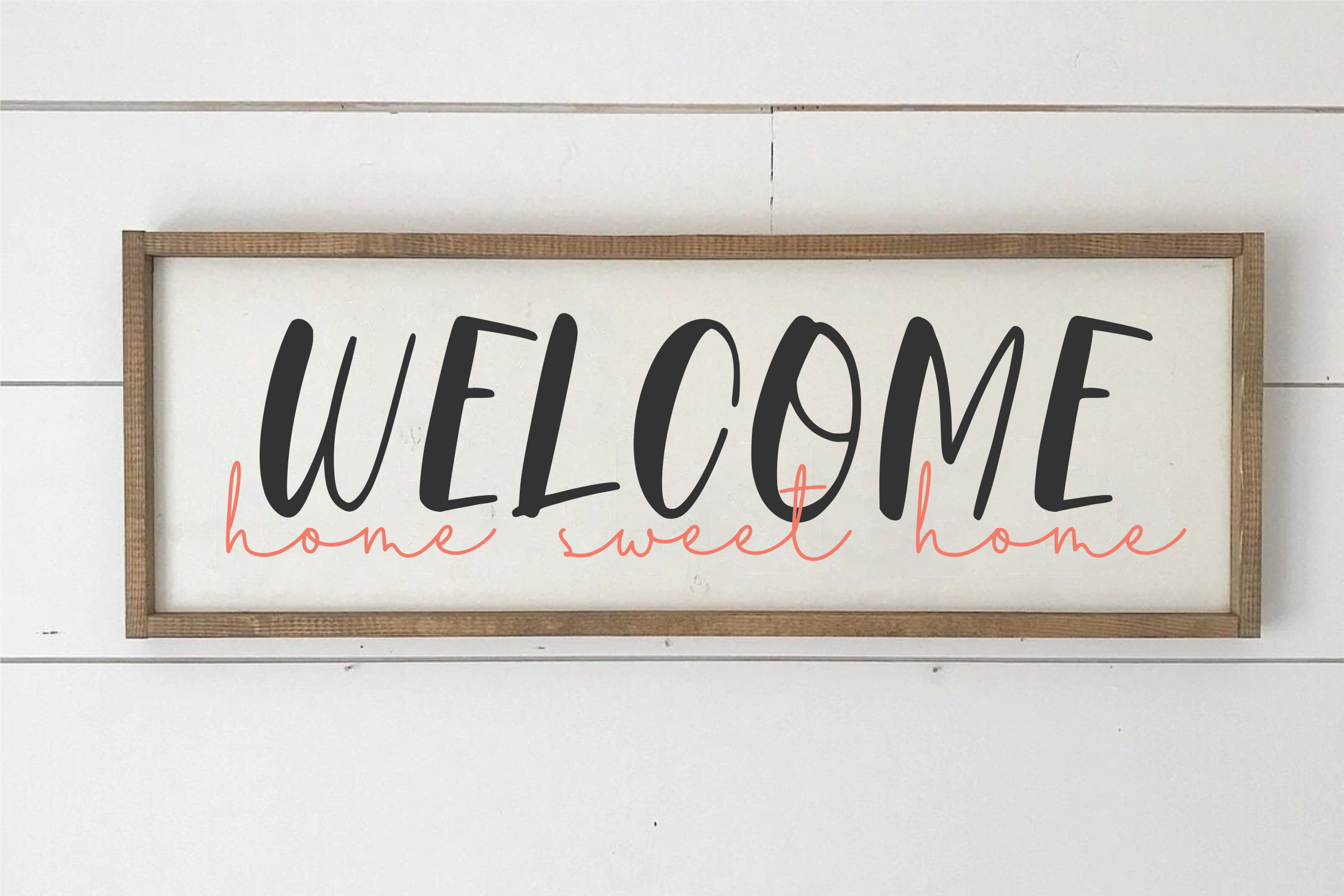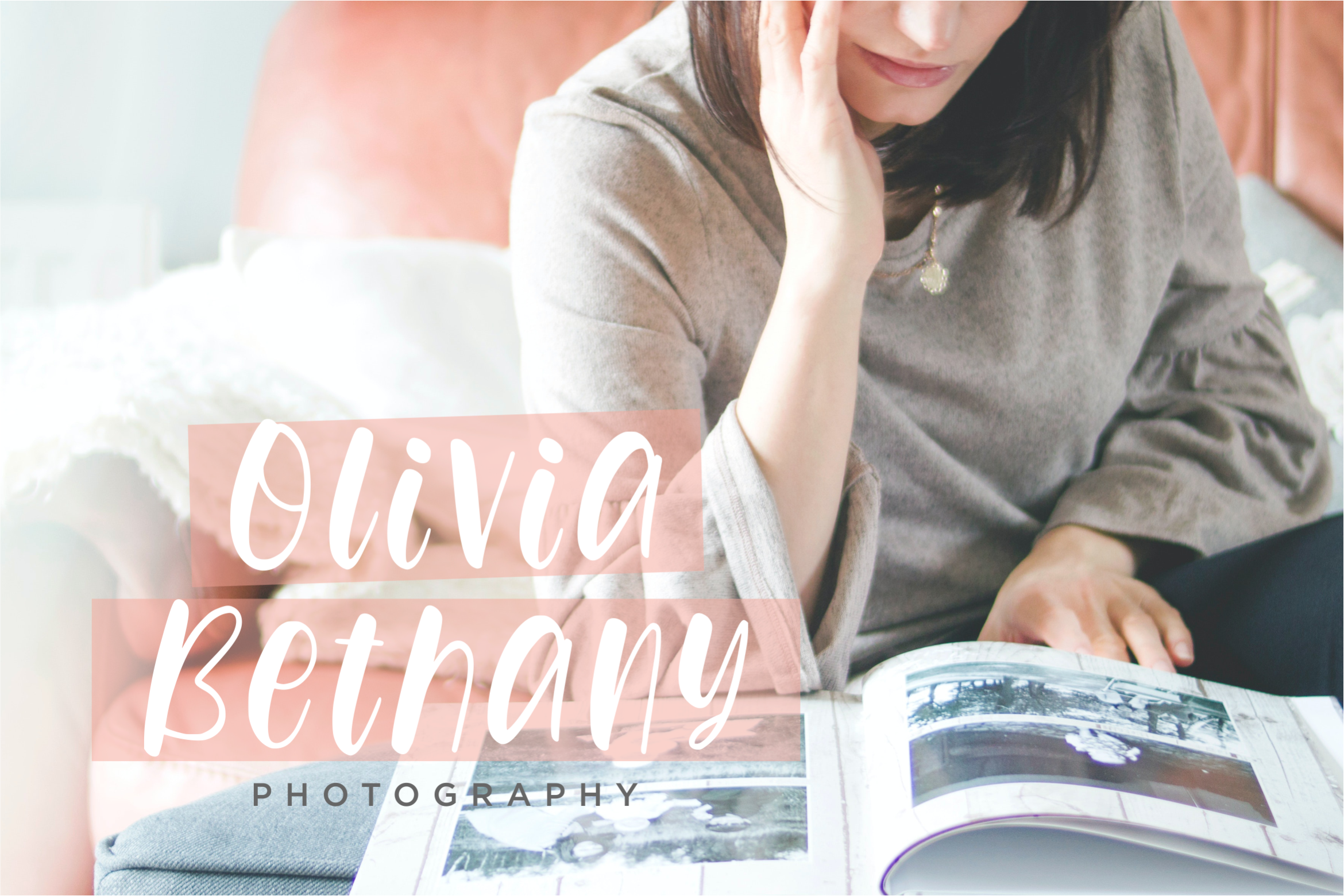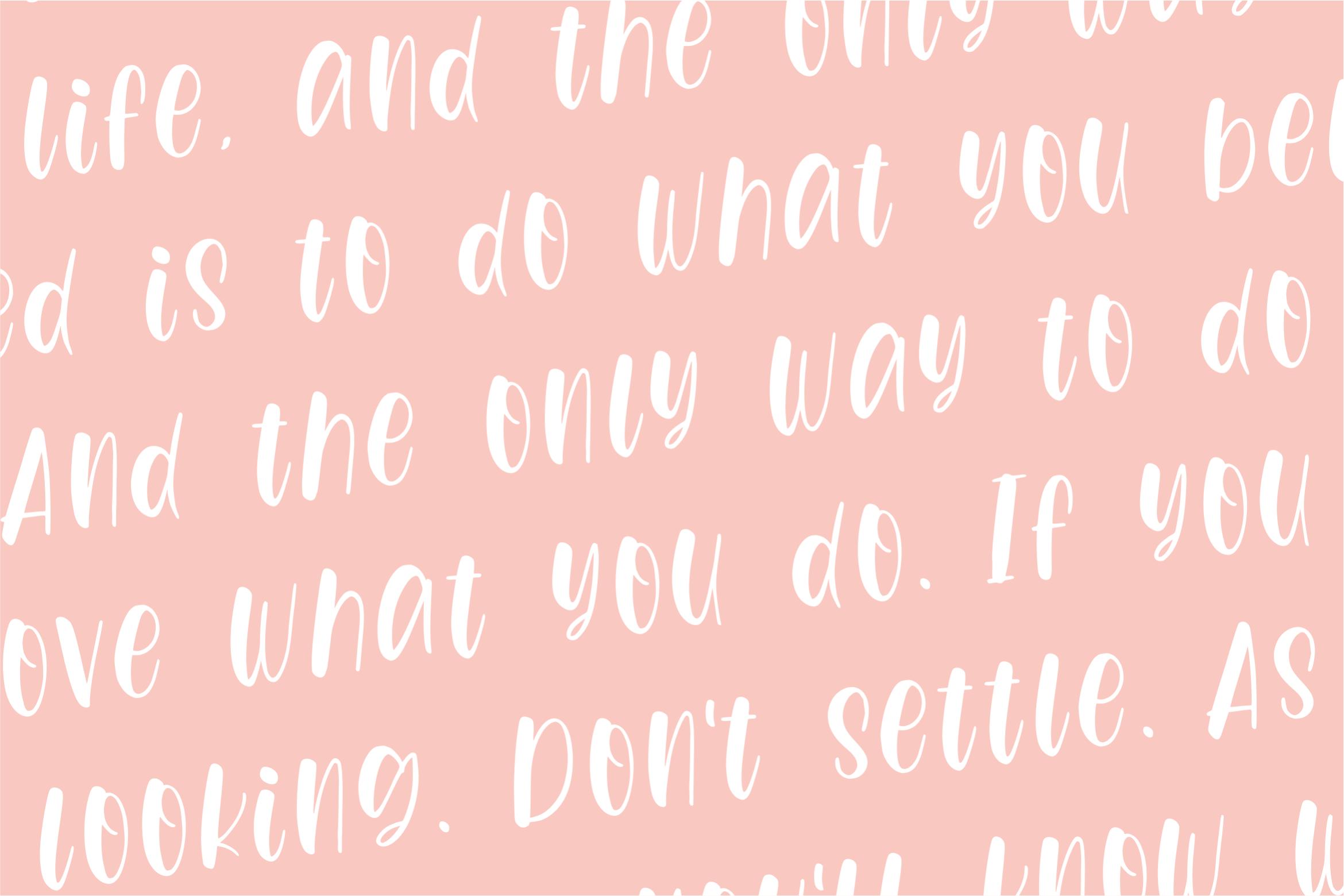
Chickyplum Font
Chickyplum Display Font
It’s a Playful Display Font. Chickyplum is perfect for product packaging, branding project, megazine, social media, wedding, or just used to express words above the background. This font includes OTF & TTF, Chickyplum also multilingual support.